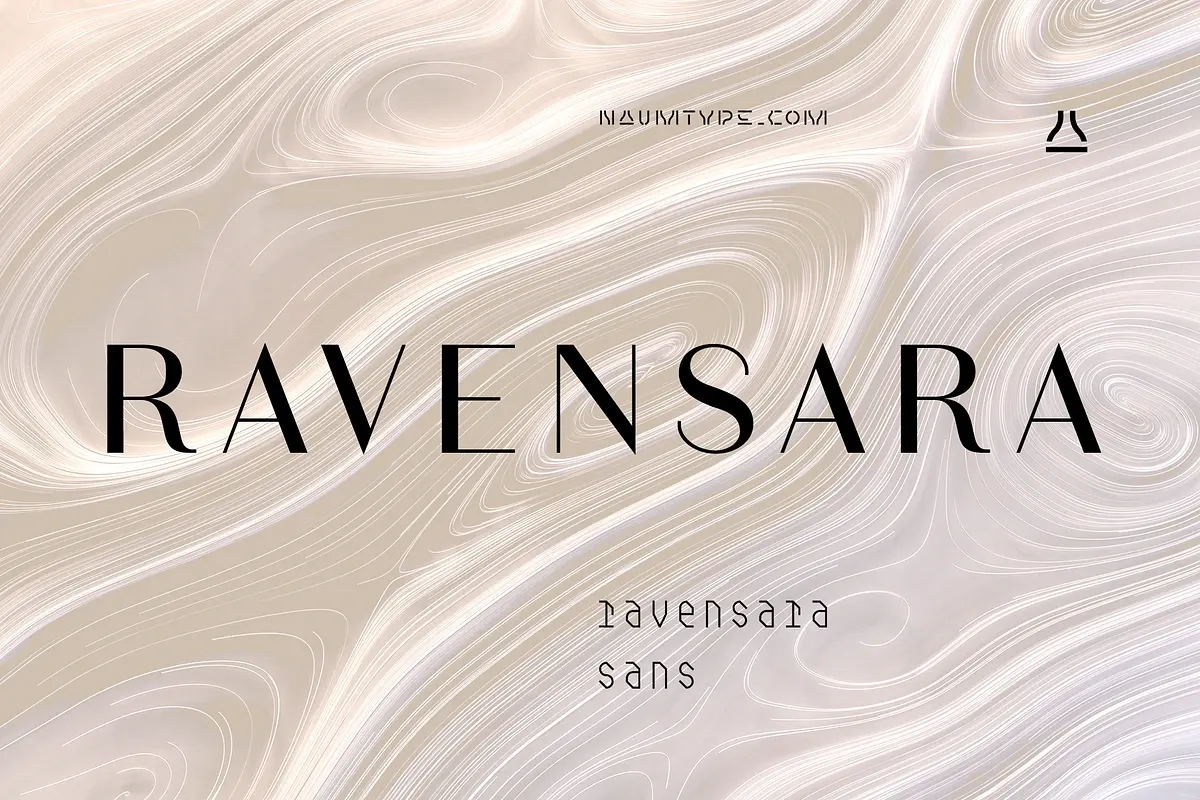
Ravensara Sans | 7 fonts Free Download
Ravensara Sans | 7 Fonts Free Download
Ravensara Sans | 7 Fonts Free Download is a versatile and modern sans-serif font family that includes seven different weights, allowing you to create a wide range of designs with ease. From light to bold, this font family provides all the flexibility you need for logos, branding, websites, headlines, and any project that requires clear and stylish typography.
With clean, geometric lines and a contemporary feel, Ravensara Sans is perfect for both print and digital media. Whether you're working on professional branding, editorial layouts, or minimalist designs, this font family provides the perfect balance of form and function.